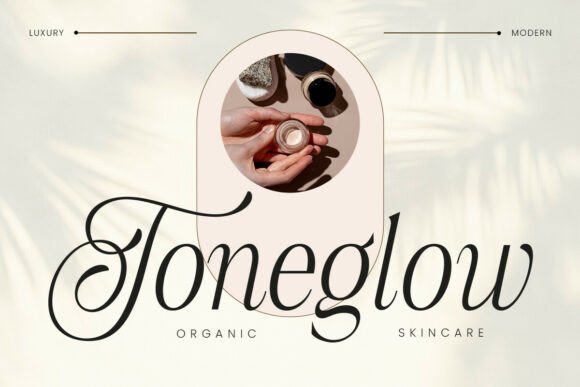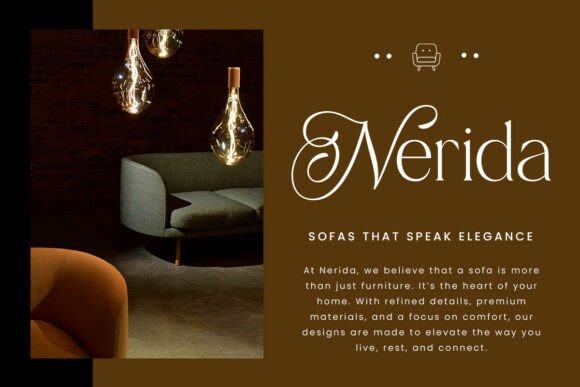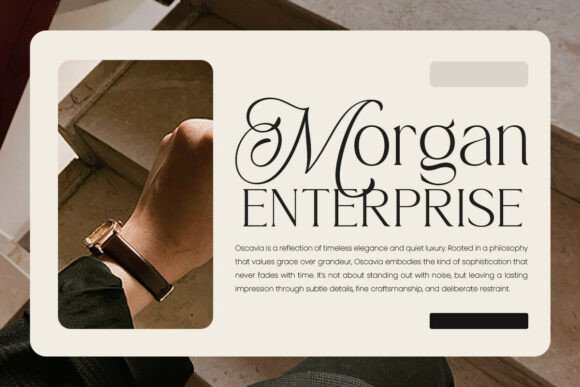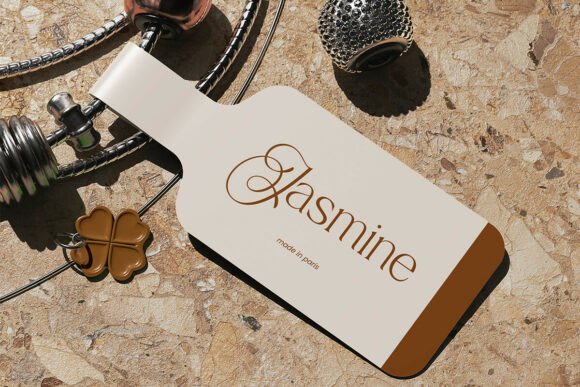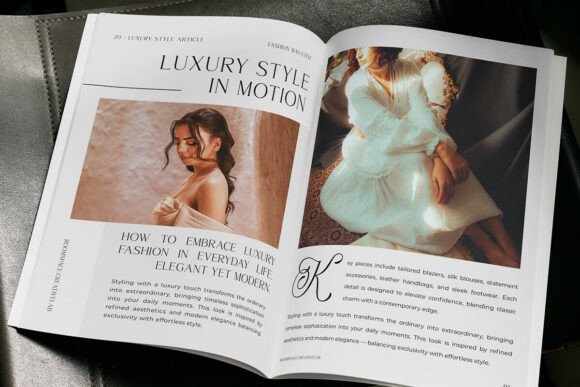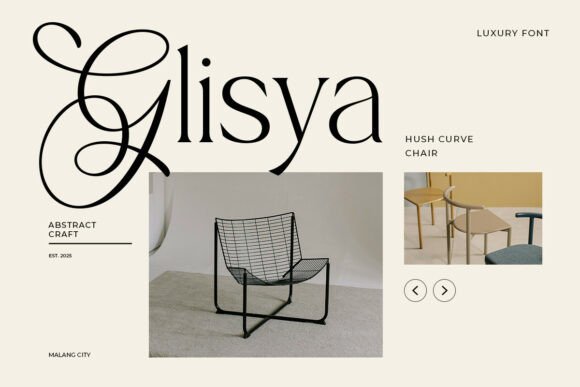
The Perfect Blend of Classic Elegance and Modern Sophistication
Have you ever stared at a beautiful typography and thought, ‘this is the perfect font for my next project’? I’m sure we all have, and for many designers, that moment can make or break the entire design process. For me, it was the moment I laid eyes on the Brikey Moura Font – a modern luxury serif font that exudes timeless elegance and sophistication.
Designed to bring classic beauty and a contemporary twist to every project, Brikey Moura Font is the perfect choice for designers who value style and sophistication. With its romantic personality and bold presence, this typeface is crafted to make a statement in any design. Whether you’re creating a logo, branding, packaging, or editorial layout, Brikey Moura Font is the ideal choice for communicating confidence, romance, and class.
Brikey Moura Font Key Features
- Unique Characteristics: Brikey Moura Font features a unique, hand-drawn style with intricate details and subtle texture, making it ideal for creative and artistic projects.
- Language Support: The font supports a wide range of languages, including Latin-based languages, Cyrillic, and Greek.
- Font Weight: Brikey Moura Font comes in multiple weights, including light, regular, bold, and extra bold, allowing for versatility in design applications.
Brikey Moura Font Review
I recently had the chance to work with the Brikey Moura Font, and I must say, it’s a unique and intriguing choice for designers. Here are my thoughts on what works well and what doesn’t.
- Distinctive aesthetic: The Brikey Moura Font has a distinct, retro-futuristic vibe that’s perfect for projects that need a bit of edge.
- High-quality glyphs: The font includes a wide range of glyphs, including ligatures and swashes, which adds to its overall charm.
- Limited language support: Brikey Moura Font primarily supports Latin-based languages, which may be a limitation for designers working on multilingual projects.
- Not ideal for body text: While the font is great for headlines and titles, it may not be the best choice for body text due to its high contrast and ornate details.
The Brikey Moura Font is a great addition to any designer’s toolkit, especially for projects that require a bold and eye-catching aesthetic. While it may have some limitations, its unique charm and high-quality glyphs make it a worthwhile choice for designers looking to add some flair to their work.
Tips for Getting the Most Out of Brikey Moura Font
Use the Brikey Moura font for headings and titles to add a touch of elegance and sophistication to your designs.
Combine the Brikey Moura font with other fonts to create a unique and eye-catching typography.
Experiment with different font sizes and colors to add depth and visual interest to your designs.
The Brikey Moura font is ideal for:
Editorial and magazine design
Q: Does Brikey Moura support Unicode characters?
Yes, the Brikey Moura font supports a wide range of Unicode characters, including Latin, Greek, and Cyrillic scripts. This makes it an excellent choice for multilingual projects and designs.